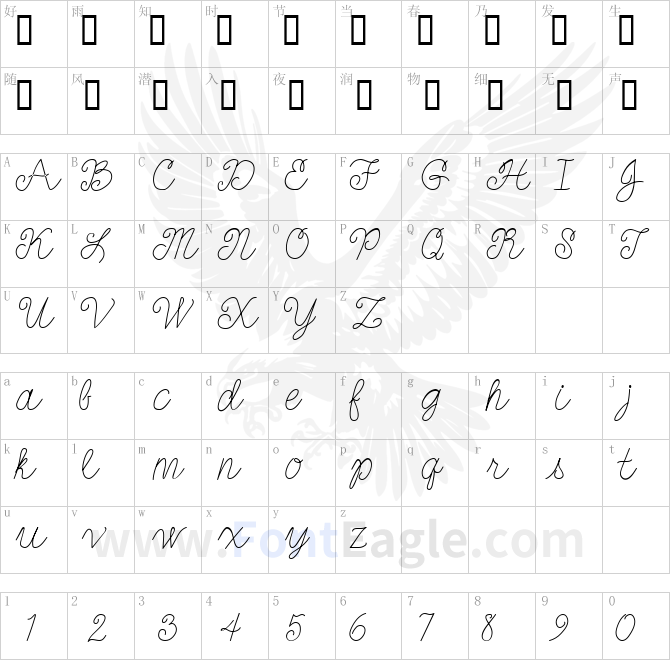
- Font name:PC Pretty
- Font Subfamily ID:Macromedia Fontographer 4.1 PC Pretty
- Font Full Name:PC Pretty
- Font Version:Macromedia Fontographer 4.1 3/20/01
- Postscript:PCPretty